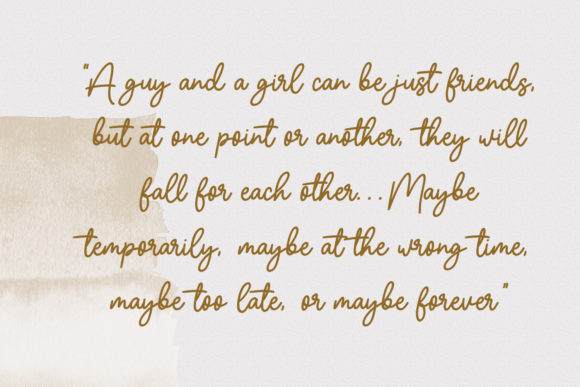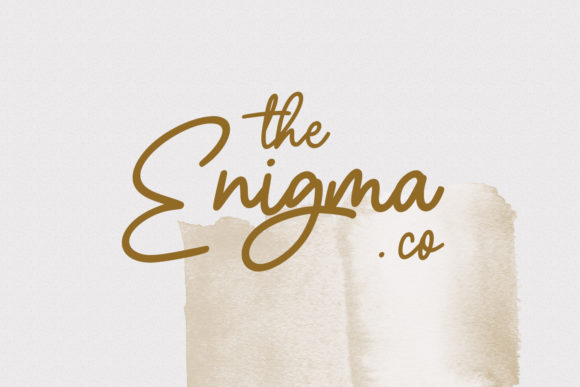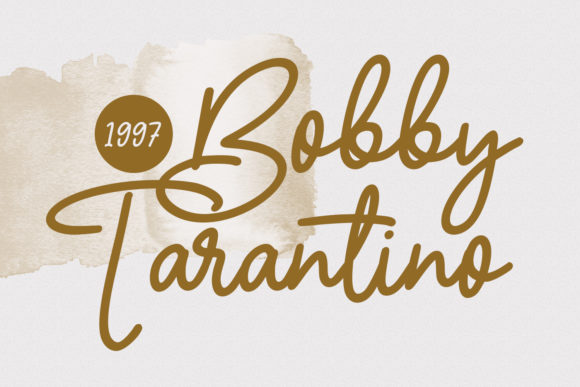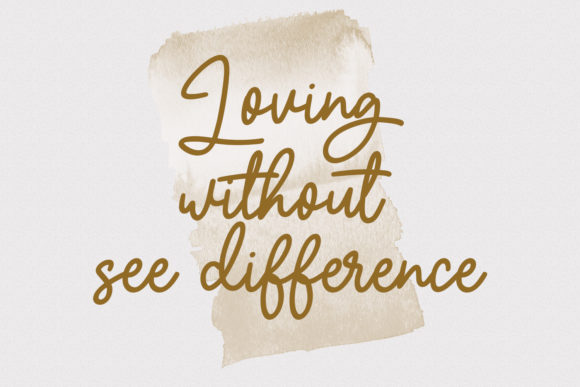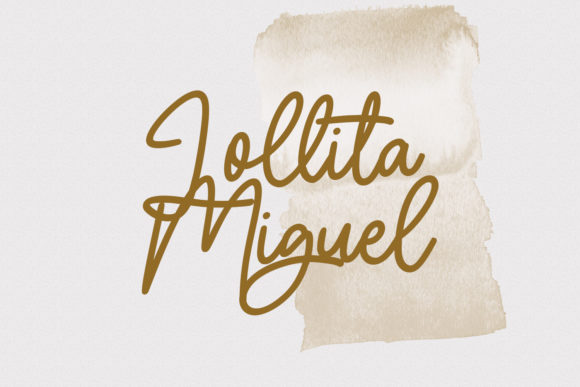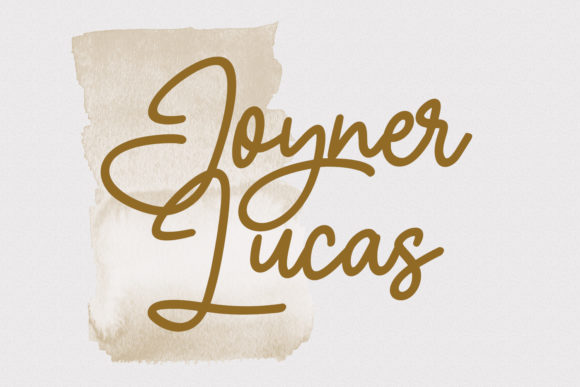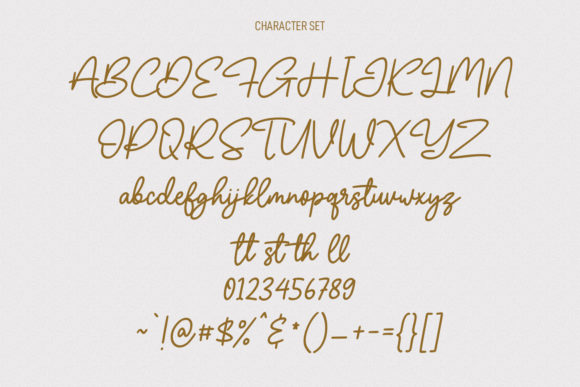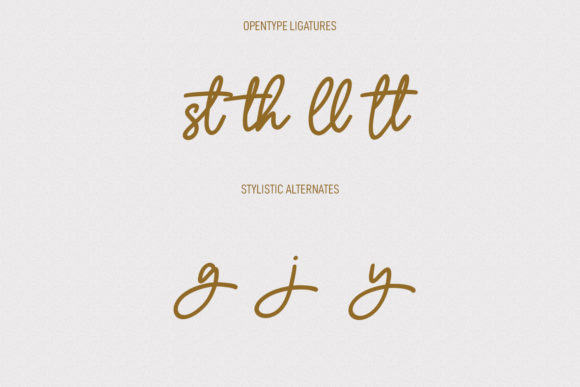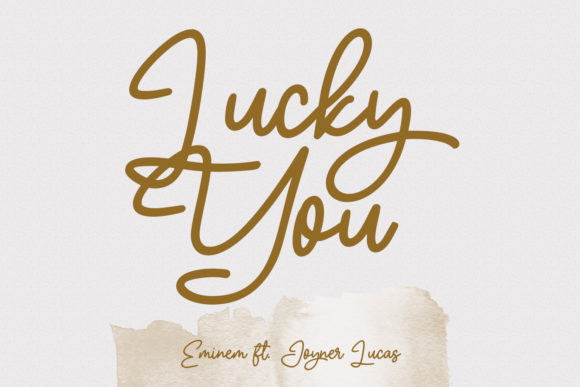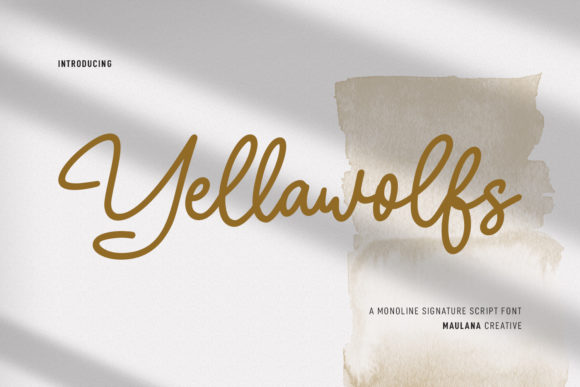
Yellawolfs Script Font
About Yellawolfs Script Font
Yellawolfs Script is a magical script font carefully created with a touch of elegance. Whether you’re looking for fonts for Instagram or calligraphy scripts for DIY projects, this font will turn any creative idea into a true piece of art!